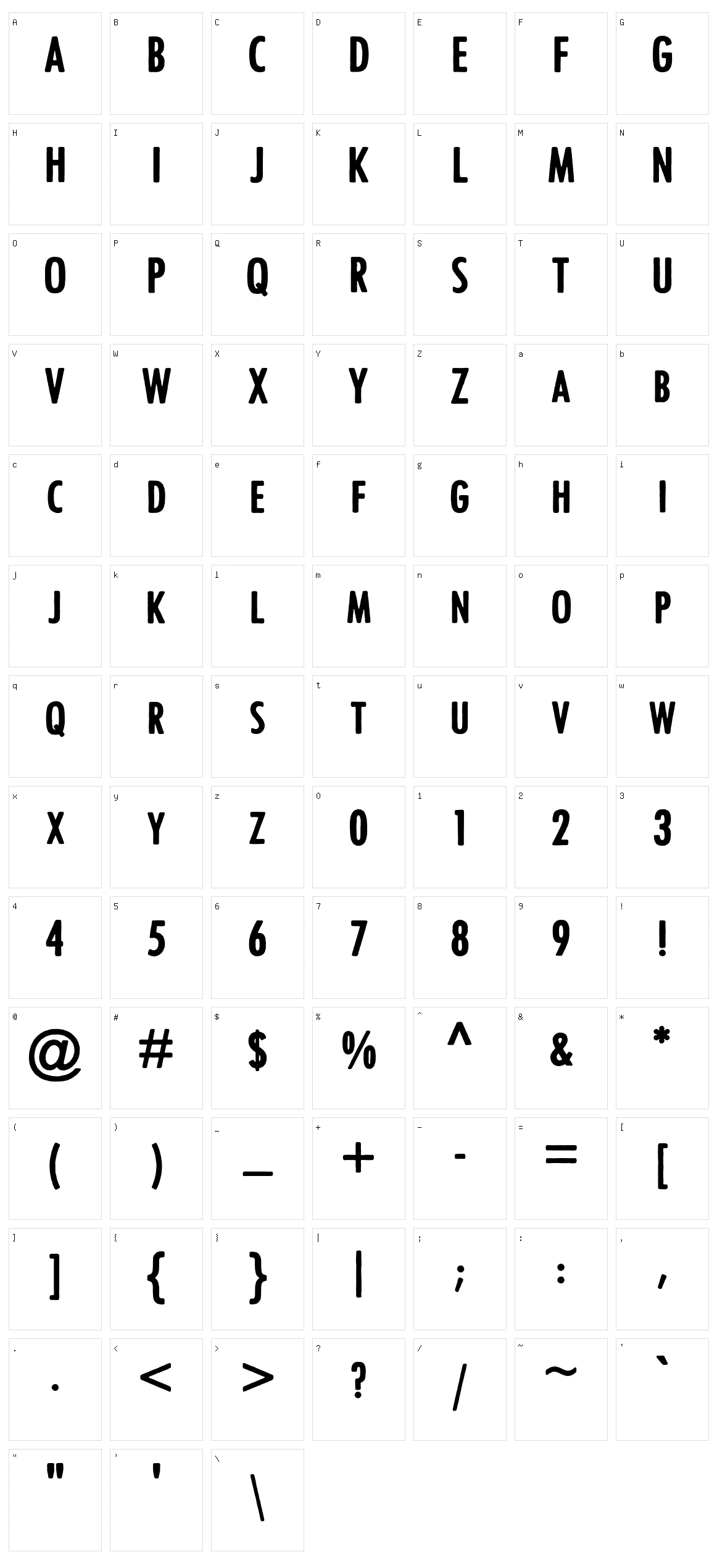
OCCAMS ERASER
A Font by S. John Ross
OCCAMS ERASER is a wish in font form. In his book, "Never Bet Against Occam: Mast Cell Activation Disease and the Modern Epidemics of Chronic Illness and Medical Complexity," Doctor Lawrence B. Afrin explores his pioneering work with Mast Cell Activation Disease/Syndrome (MCAD/MCAS) and its extraordinary complexity, including the fascinating medical detective-story of its diagnosis. Occam's Razor (boiled down: the simplest of competing theories should be preferred) is the obvious reference in the book's title, and here I hope my bit of wordplay is similarly transparent. If the cool logic of William of Ockham can get us here, I hope similarly disciplined thinking can one day get us out.
OCCAMS ERASER is a full US-Keyboard Small-Caps stressed poster font with some extras for additional European alphabets. Enjoy!